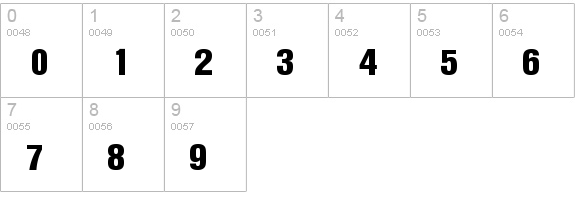
Nimbus Sans T Black Condensed is a maximum-weight, dramatic, condensed-width variant in the Nimbus typeface family \xE2\x80\x94 well suited to maximum-impact headlines, posters, and packaging.
Nimbus Sans T Black Condensed font is a bold and impactful typeface that commands attention with its sleek and modern design. Its condensed form exudes a sense of power and authority, making it perfect for headlines, titles, and branding materials. The sharp, clean lines of this font give it a contemporary edge while maintaining a high level of readability. What sets Nimbus Sans T Black Condensed font apart is that it is not only visually striking but also free to download. You can easily access this versatile font at FontsMarket.com, making it a valuable addition to your design toolkit without any cost. Whether you're looking to make a statement with your typography or simply want a reliable and stylish font for your projects, Nimbus Sans T Black Condensed font is an excellent choice that won't break the bank.